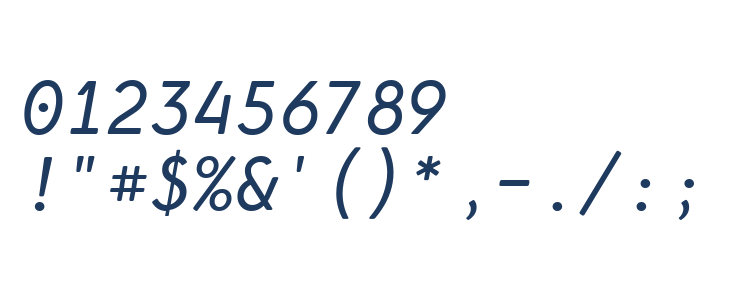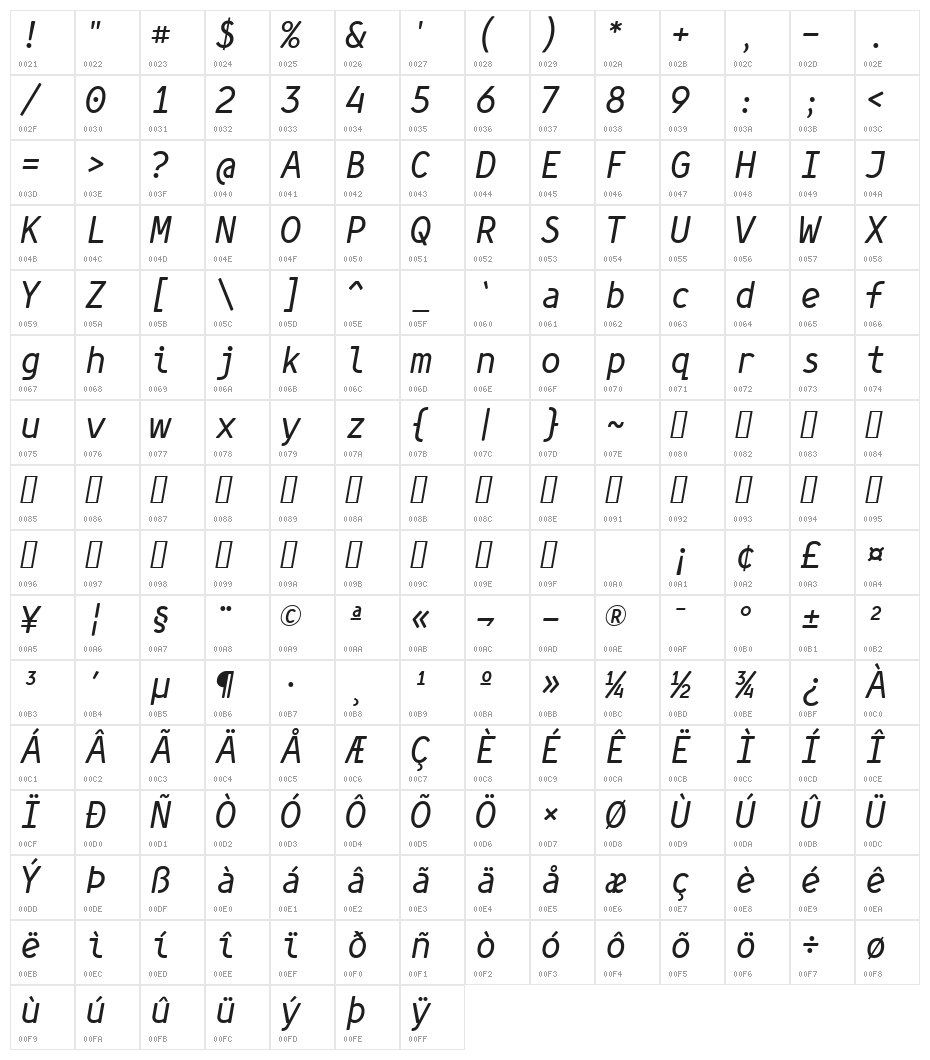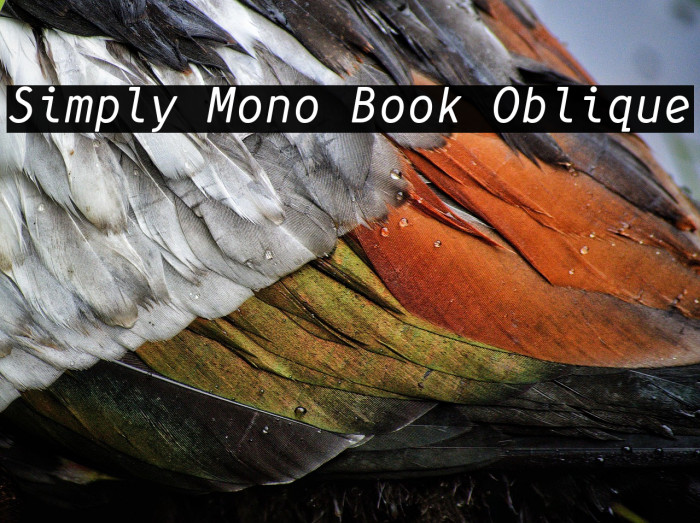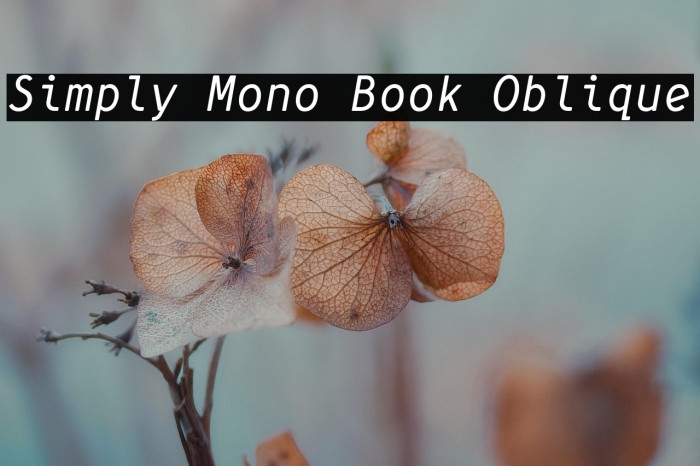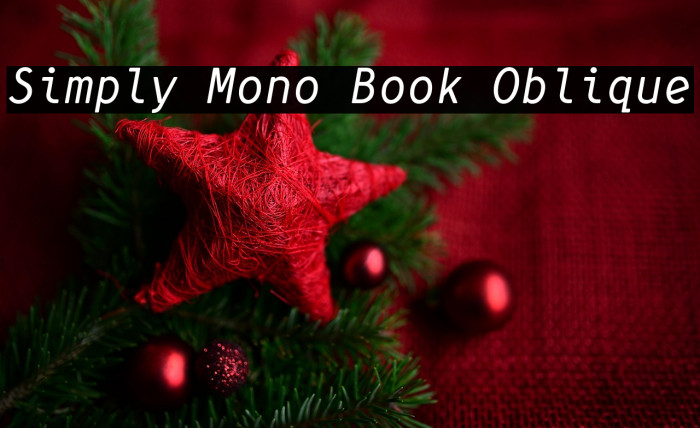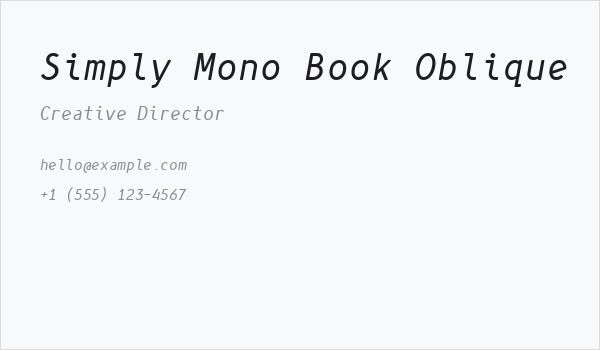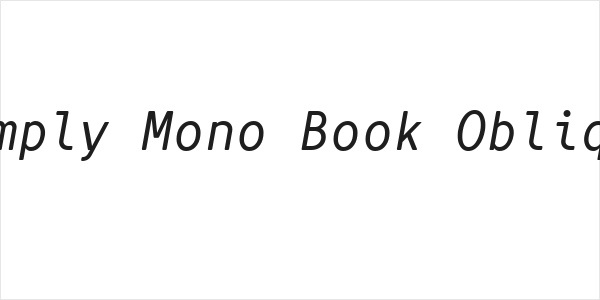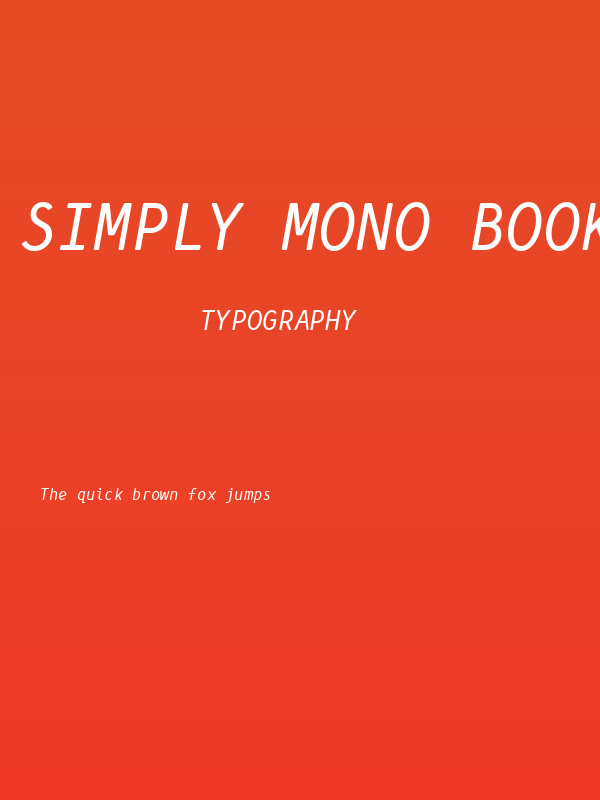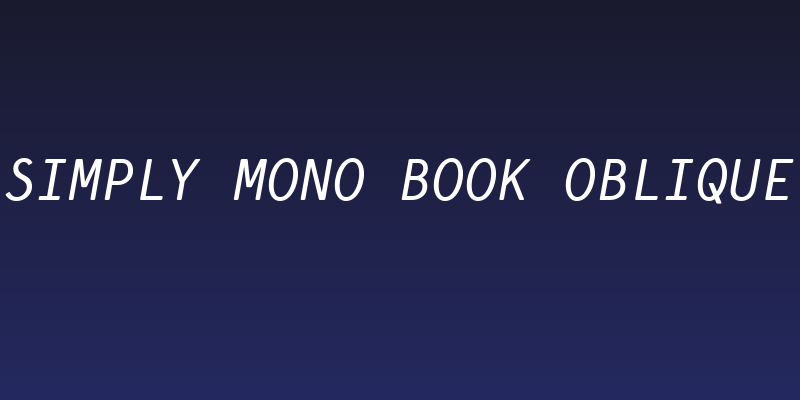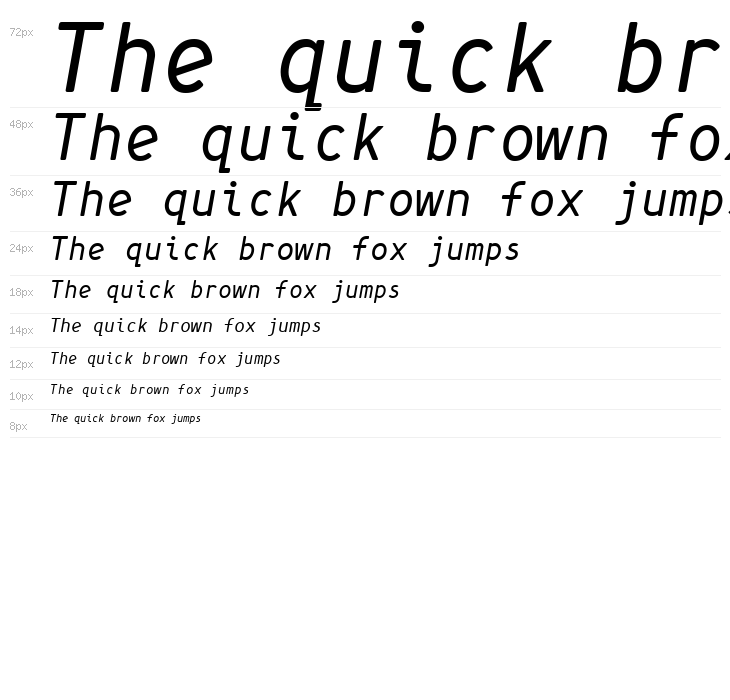
Simply Mono Book Oblique Font
Simply Mono Book Oblique Description
This font features a clean, monospaced design with a slight oblique slant, giving it a modern and technical appearance. Each character is evenly spaced, ensuring uniformity and readability. The strokes are consistent in weight, providing a balanced look across all characters. The uppercase letters are bold and assertive, while the lowercase letters maintain a softer, more approachable feel. Numerals and special characters are designed with clarity in mind, making them easily distinguishable. The overall style is functional yet stylish, suitable for a variety of digital and print applications.
| Use Case | Coding, Technical documentation, Branding |
| Proposed Projects | Ideal for coding environments, technical documentation, and modern branding projects. |